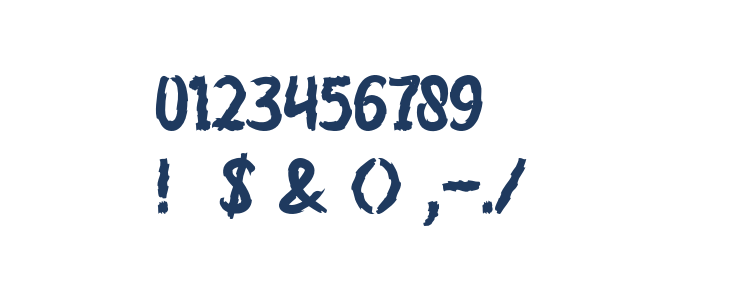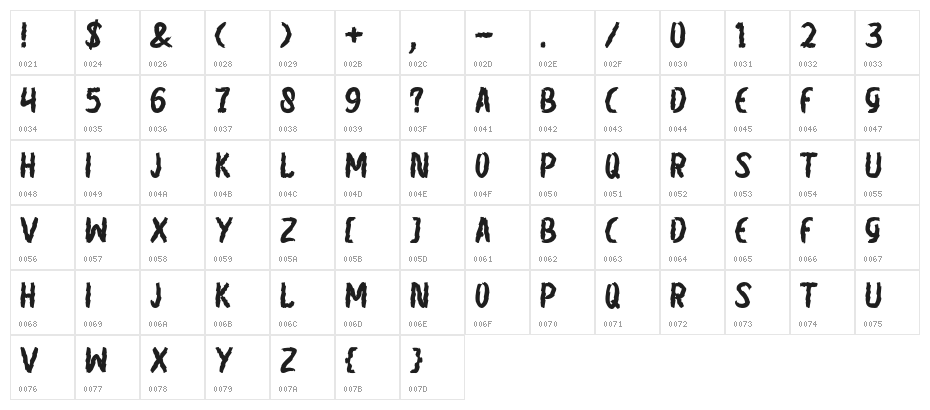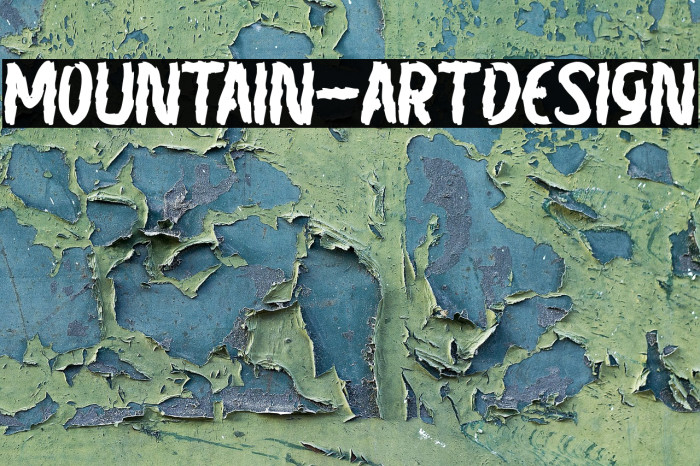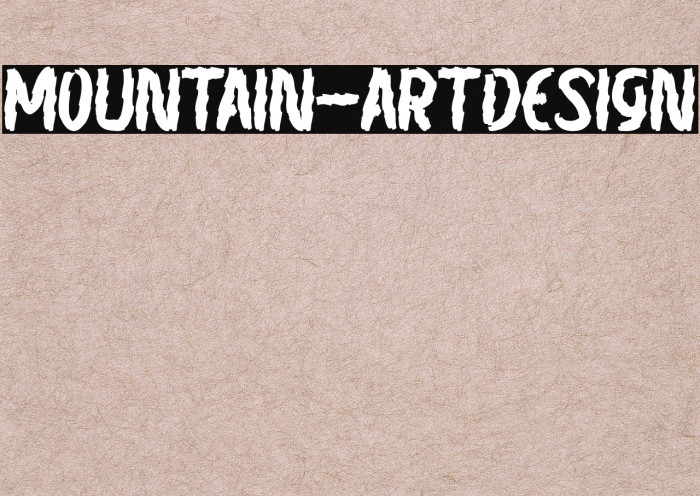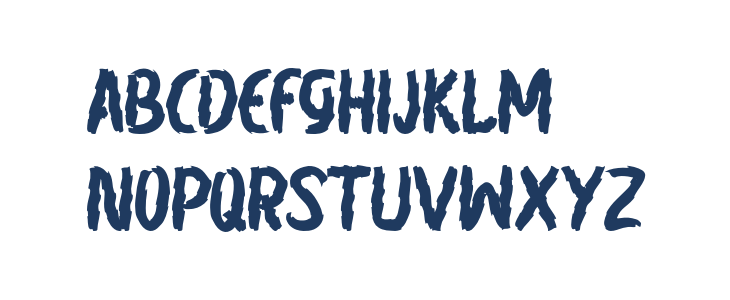
mountain-artdesign Font
mountain-artdesign Description
This font features a bold and rugged design, reminiscent of hand-painted brush strokes. The characters have a dynamic and energetic feel, with irregular edges and a slightly distressed appearance. The uppercase and lowercase letters maintain a consistent style, emphasizing a raw and artistic aesthetic. The numerals and special characters follow the same bold and expressive design, making the font suitable for projects that require a strong visual impact. The overall look is both modern and artistic, ideal for creative and adventurous themes.
| Overall Style | Modern, Artistic |
| Proposed Projects | Ideal for posters, album covers, branding for outdoor or adventure products, and artistic projects. |